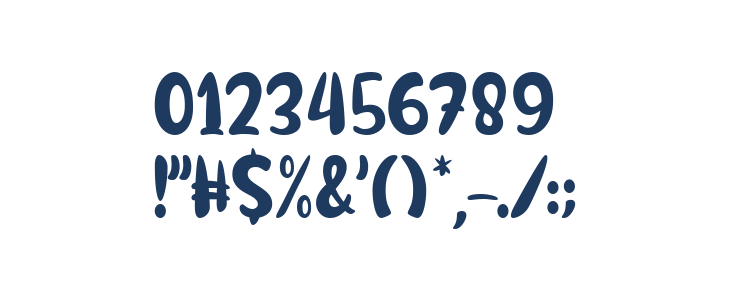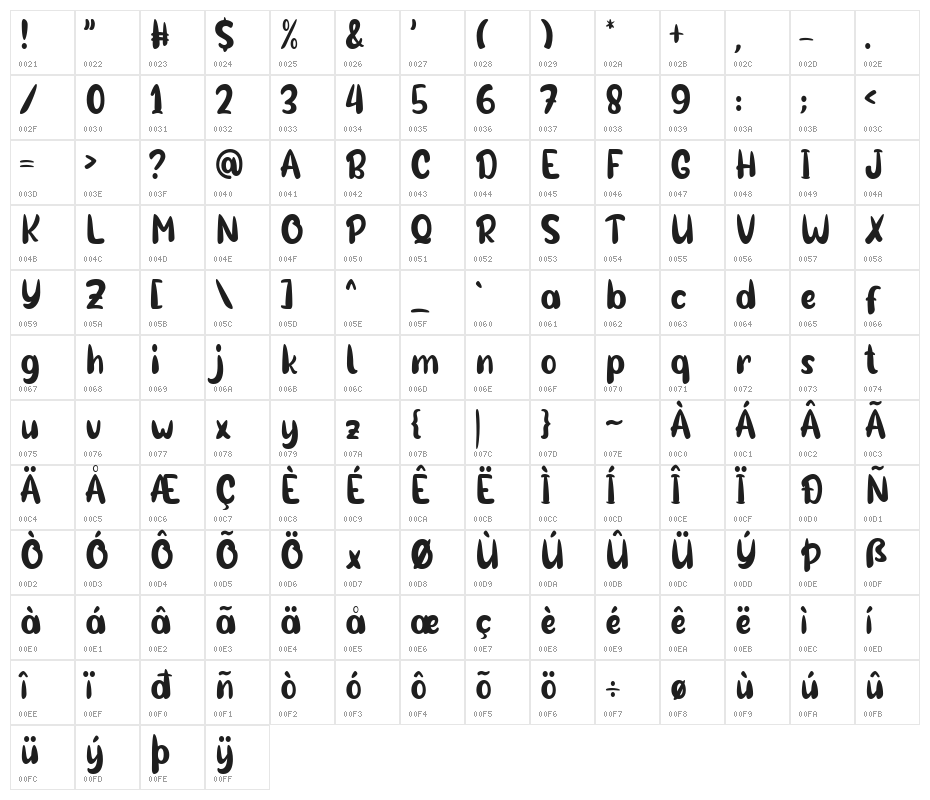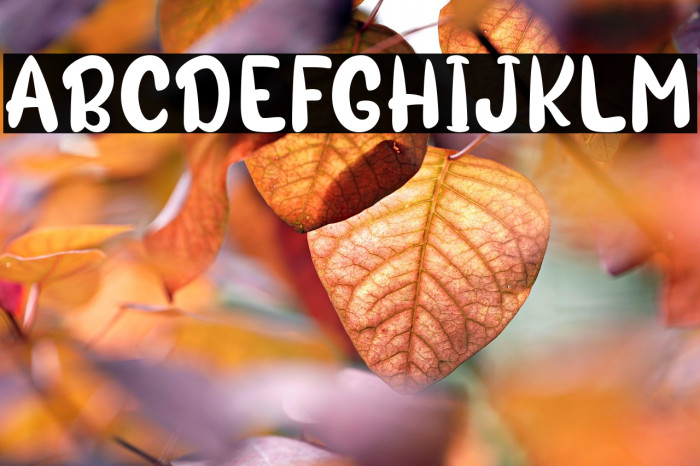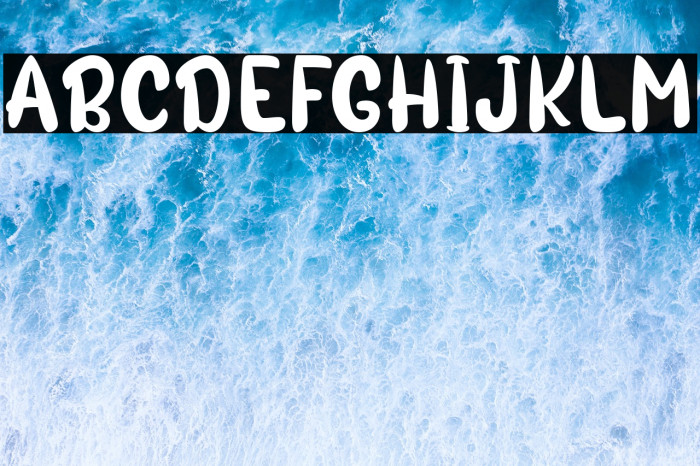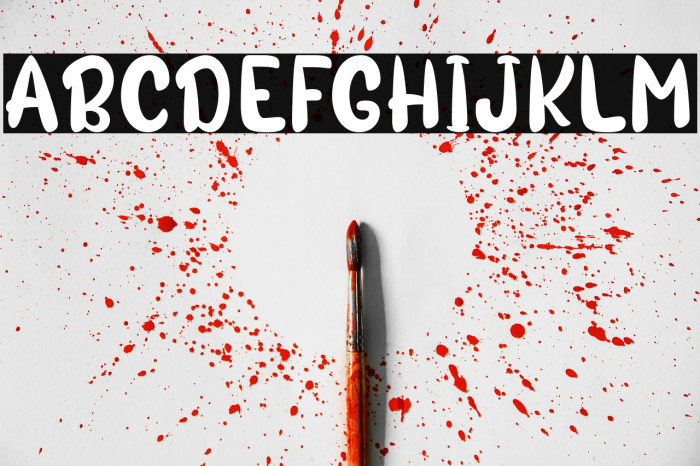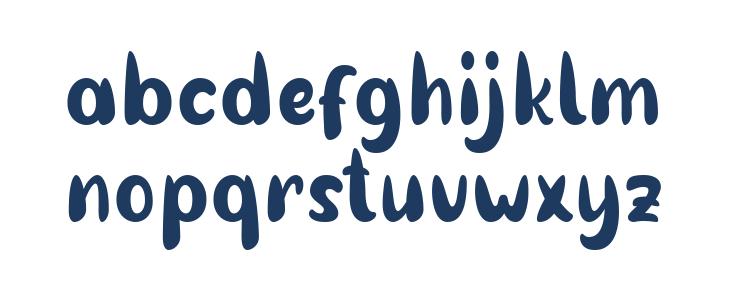
Sotis Font
Sotis Description
This playful and bold font features a handwritten style with rounded edges and a slightly irregular baseline, giving it a casual and friendly appearance. The characters are thick and well-defined, with a consistent weight throughout. The uppercase and lowercase letters maintain a cohesive look, while the numerals and special characters complement the overall style. The font's design is approachable and versatile, making it suitable for a variety of creative projects.